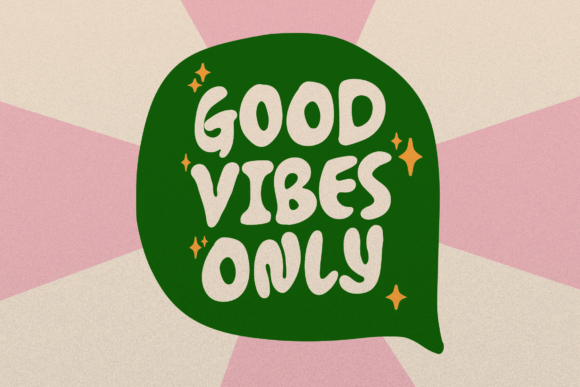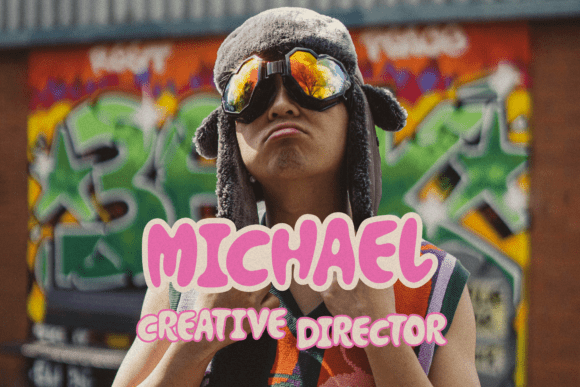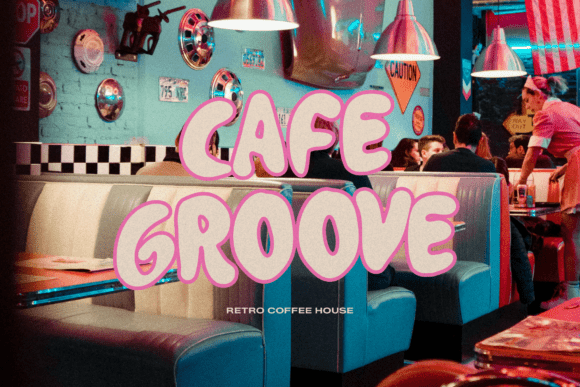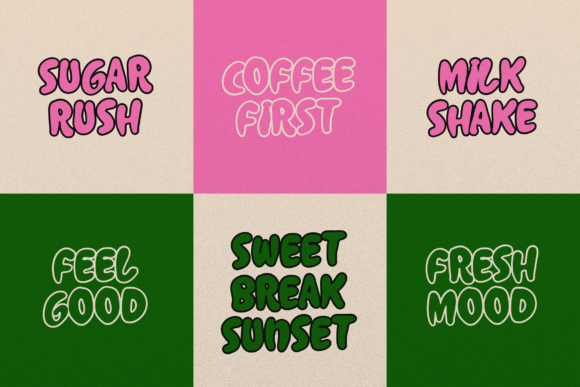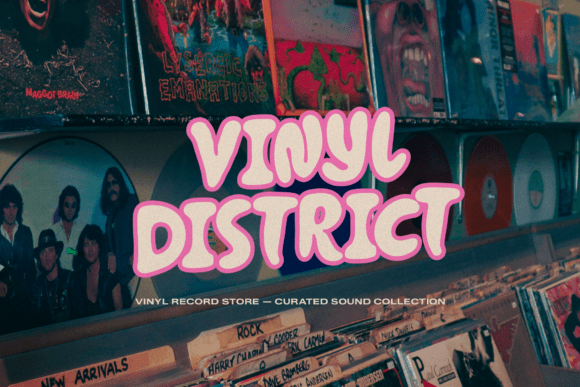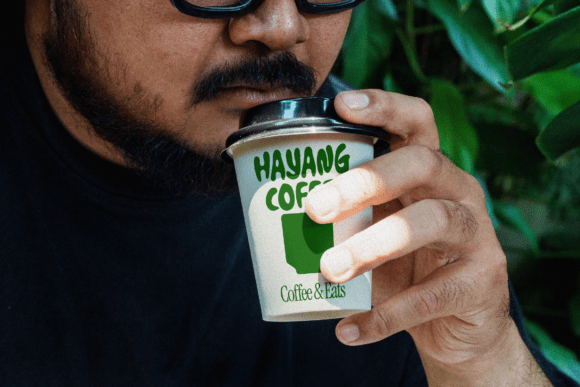
Introduction to Pops Cloud Font
Have you ever stared at a blank design canvas, feeling the weight of a creative project on your shoulders? Suddenly, a burst of inspiration strikes, and you envision a whimsical world where words dance among fluffy clouds. This is the magic of Pops Cloud Font, a vibrant display typeface that’s about to take your designs to new heights.
As a designer, you’re always on the lookout for the perfect design resource to elevate your work. Pops Cloud Font is that game-changing find, offering a unique blend of nostalgia and modernity that’s sure to captivate your audience. With its heavy, organic letterforms and wobbly silhouettes, this font is perfect for creating high-quality designs that demand attention.
Pops Cloud Font
- High-quality design resource featuring a whimsical, cloud-inspired font, perfect for creative projects.
- Unique characteristics include playful, rounded shapes and delicate textures, adding a touch of whimsy to any design.
- Perfect for use in digital design, print materials, and web applications, including logos, graphics, and typography-based projects.
Honest Review: Pops Cloud Font
I recently came across the Pops Cloud Font, a design resource that caught my attention. This free download offers a unique, high-quality font that can be used for creative projects.
- ✨ Unique and playful design, perfect for adding a touch of whimsy to a design project.
- ✨ High-quality font that is crisp and clear, even when used on a transparent background.
- ✨ Great for designers looking for a free design resource to add some personality to their work.
- ⚠️ Limited character set, which may not be suitable for projects that require a wide range of characters.
- ⚠️ May not be suitable for formal or professional projects, due to its playful design.
Overall, I was impressed with the Pops Cloud Font. It’s a great resource for designers looking to add some creativity to their projects. While it may have some limitations, it’s a high-quality font that is well worth checking out.
Pops Cloud Font
Pops Cloud Font is a versatile design resource that can elevate your creative project with a touch of elegance. This high-quality font boasts a transparent background, making it perfect for overlaying on images or using as a standalone element.
Tips for Getting the Most Out of Pops Cloud Font
To maximize the impact of Pops Cloud Font, experiment with different font sizes, colors, and combinations to create a unique visual identity for your project.
Pops Cloud Font is ideal for:
- Brand identity and logo design
- Infographics and data visualizations
- Wedding invitations and event branding
- Blog and article headers